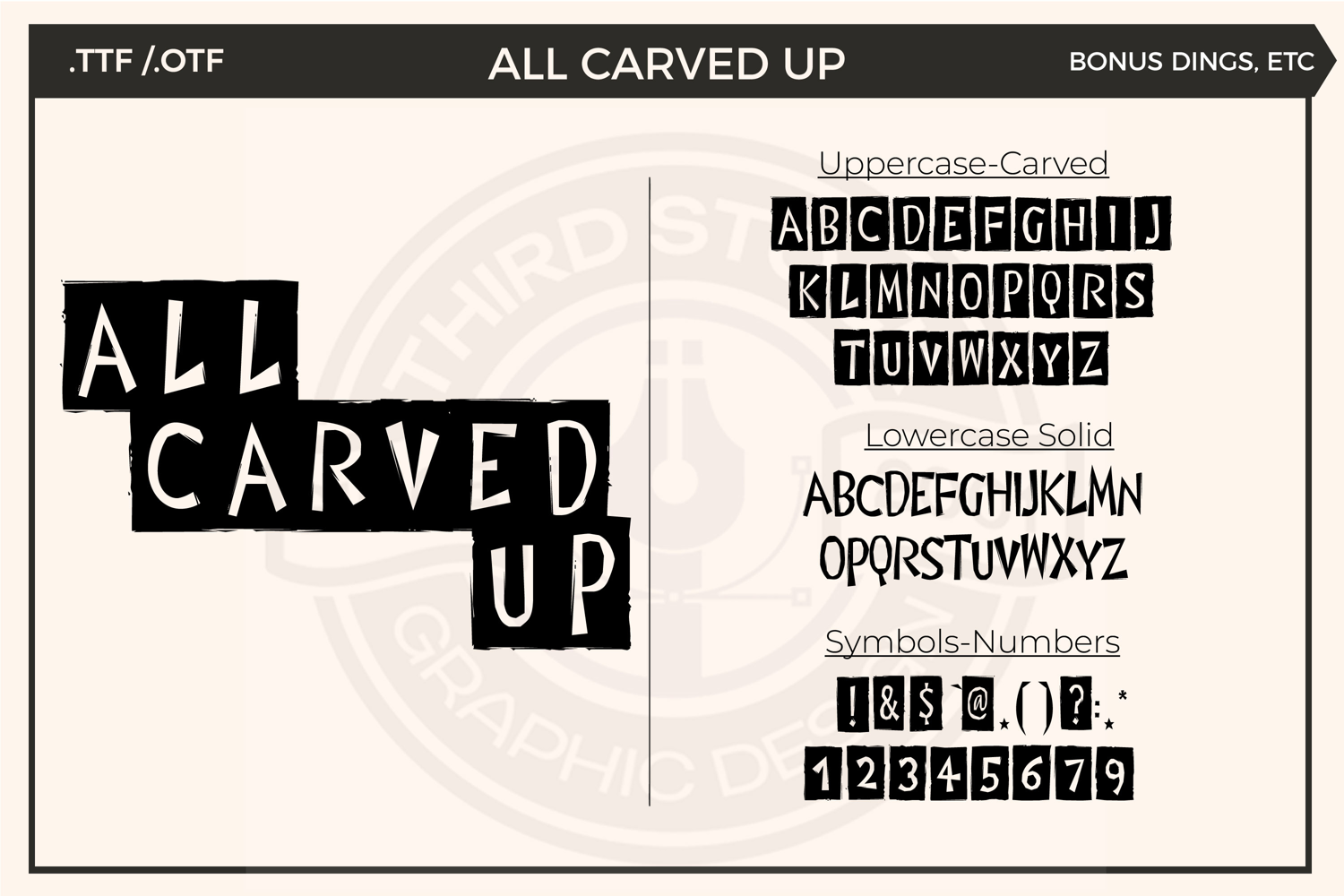
All Carved Up
A wood carved themed font includes the .ttf & .otf versions. Uppercase 'Cut Out' letters transparent background, lowercase, all solid letters